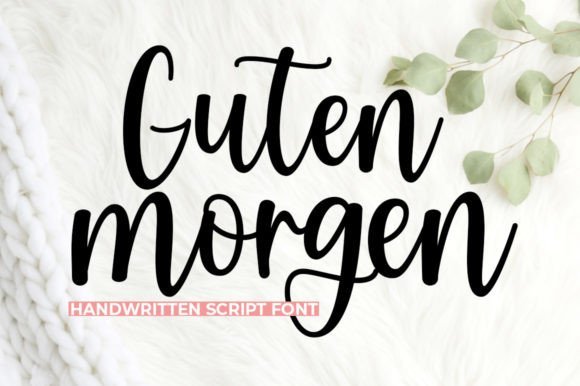
Wake Up to Beautiful Design: Introducing the Guten Morgen Font
As a designer, there’s nothing quite like the rush of inspiration that comes from a blank page. You’re browsing through font libraries, searching for the perfect combination of elegance and playfulness to bring your latest project to life. And then, it happens – you stumble upon the Guten Morgen Script, a modern calligraphy design that instantly sparks your creativity.
This beautiful font is more than just a pretty face; it’s a versatile tool that can elevate any design from logos to wedding invitations, product packaging to book covers. With its casual yet sophisticated vibe, the Guten Morgen Font is a valuable addition to any designer’s toolkit, offering endless possibilities for creative expression.
Guten Morgen Font Key Features
- Unique Characteristics: Elegant, modern script font with a warm, friendly feel; ideal for invitations, greeting cards, and other creative projects
Guten Morgen Font Review
Guten Morgen Font is a beautiful, hand-drawn font that exudes warmth and elegance ✨. Its unique, cursive design makes it perfect for adding a touch of sophistication to any project. The font’s subtle imperfections and irregularities give it a charming, handmade feel that’s hard to replicate with digital fonts.
The font’s versatility is another major strength ✨. It’s suitable for a wide range of applications, from wedding invitations and greeting cards to branding and packaging. The font’s high legibility and clear typography make it easy to read, even at small font sizes.
- ⚠️ Limited character set: The font’s character set is relatively limited, which may be a concern for designers working with languages that require a wide range of characters.
- ⚠️ Not ideal for large blocks of text: Due to its cursive design, Guten Morgen Font may not be the best choice for large blocks of text, as it can become difficult to read.
Overall, Guten Morgen Font is a lovely addition to any designer’s toolkit ✨. While it has some limitations, its unique design and versatility make it a great choice for a wide range of projects.
Use Guten Morgen Font for creating vintage-inspired designs, posters, and invitations. Experiment with different font sizes and styles to achieve a unique look. You can also pair Guten Morgen Font with other fonts to create a visually appealing combination.
Guten Morgen Font is commonly used for:
– Creating vintage-inspired posters and flyers
– Designing invitations and wedding stationery
– Adding a touch of elegance to business cards and resumes
– Creating a unique look for social media